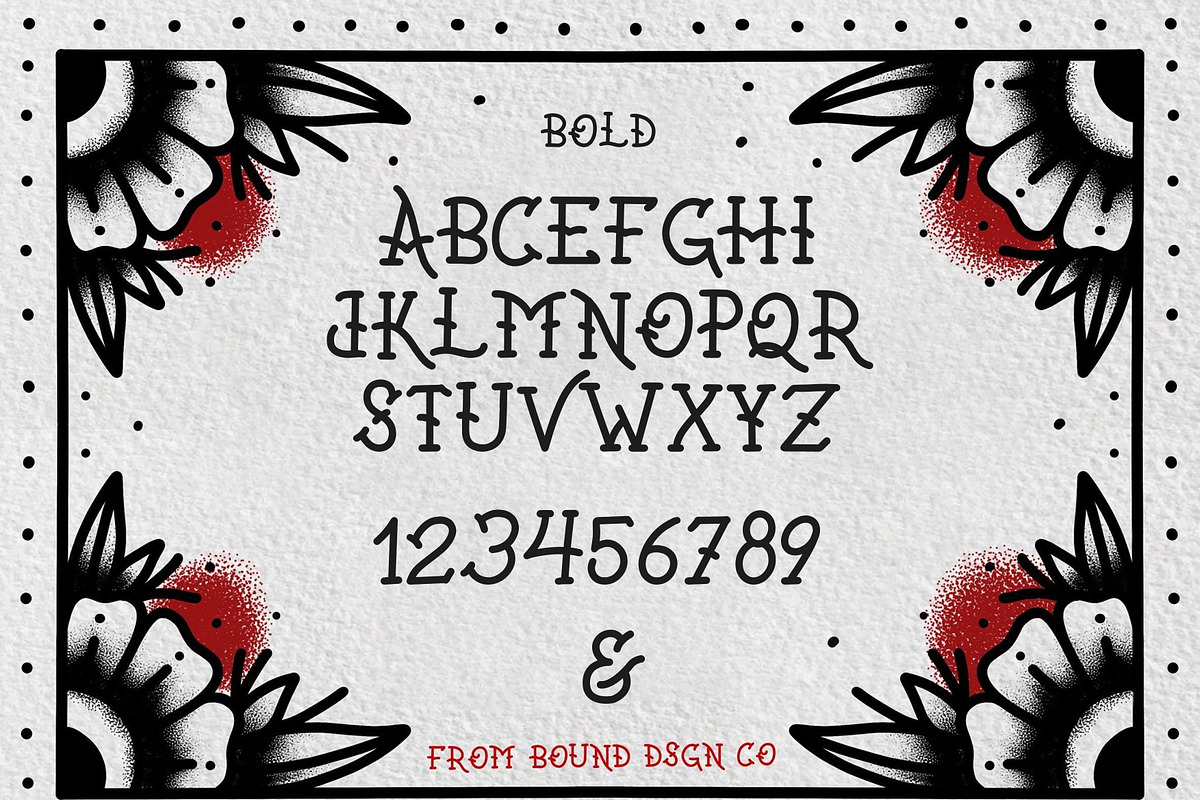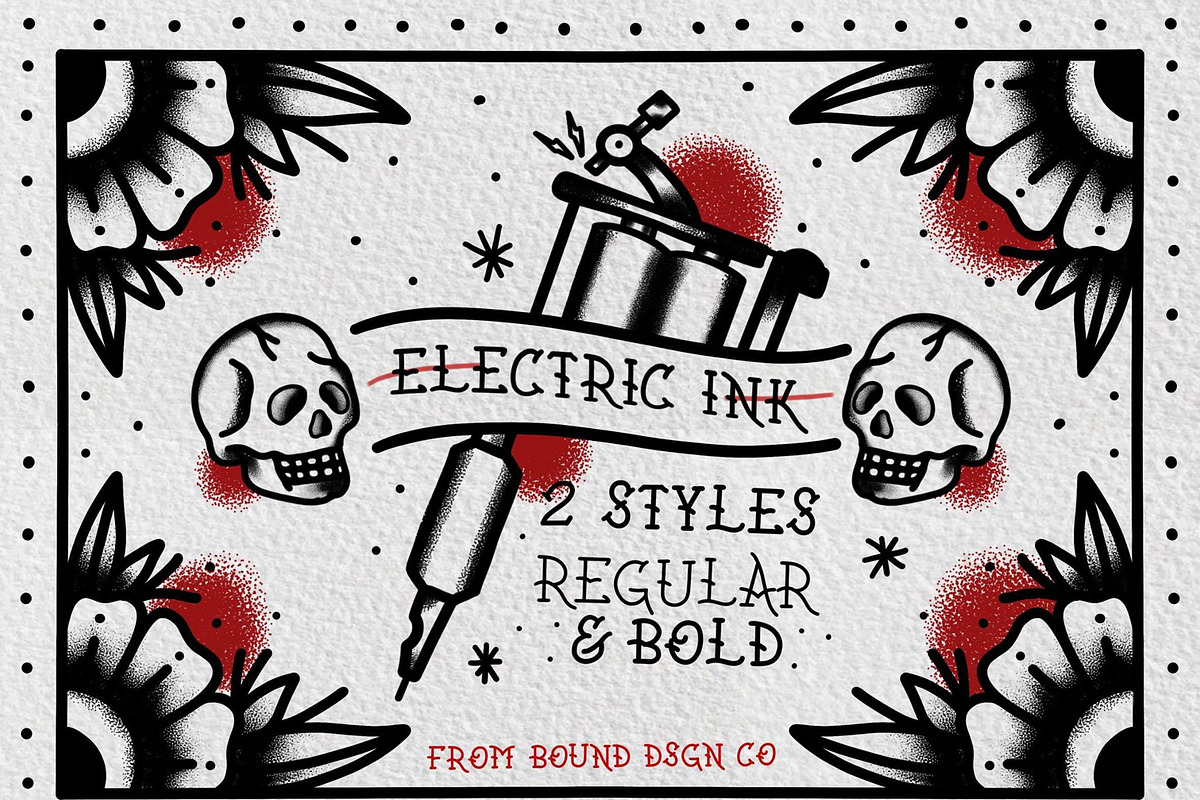
Electric Ink font
traditional tattoo lettering inspired font
Why Electric Ink font is worth a look
Electric Ink font by Bound Design Co fits naturally into Branding, posters, packaging, typography.